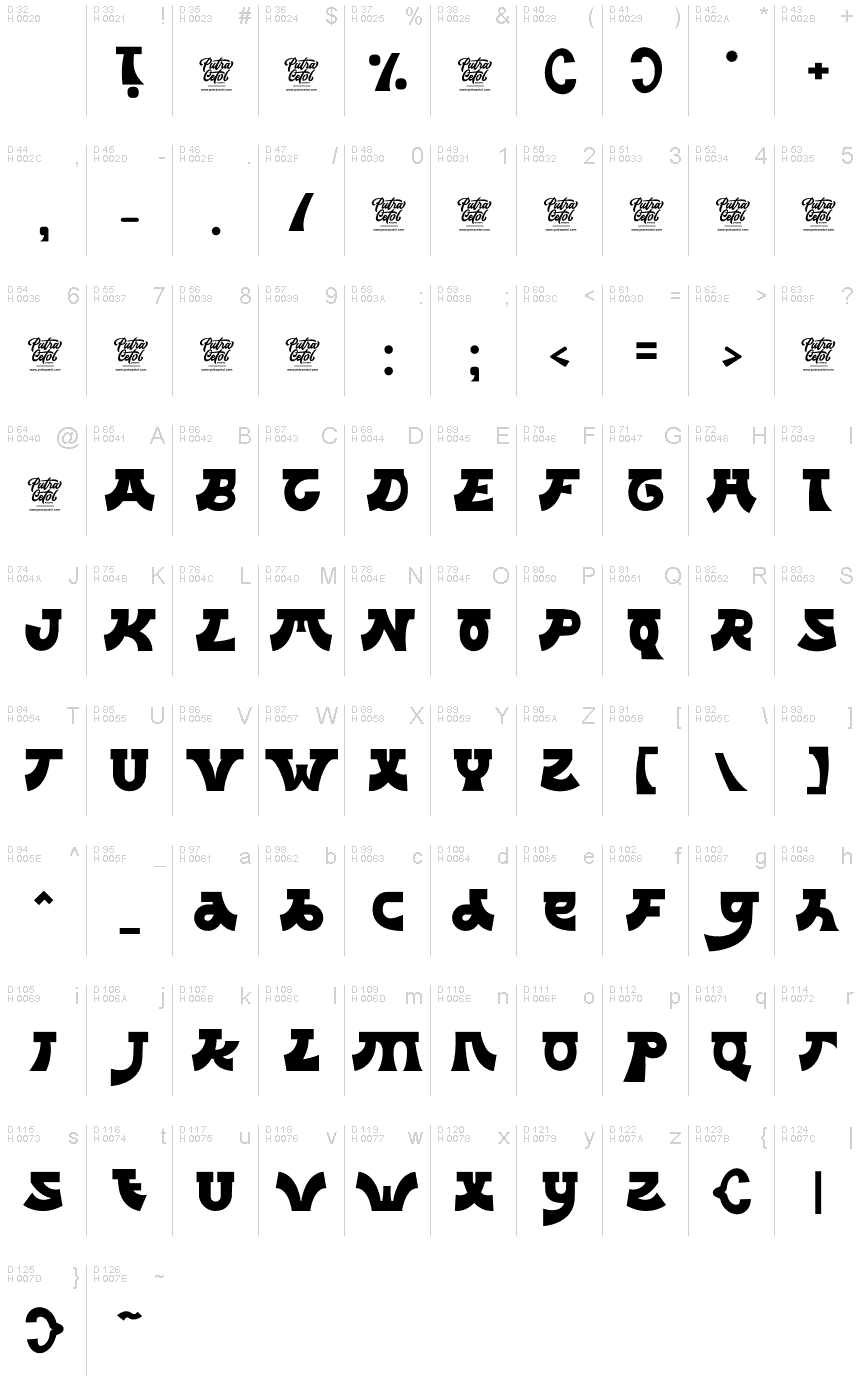
Japanese Emperor is a bold, semi-expanded font designed by PutraCetol Studio. Inspired by Japanese culture, this typeface features intricate strokes with a touch of elegance. Its unique style is suitable for various projects such as branding designs, book covers, movie titles, and even social media graphics. Use it to add a touch of oriental charm to your designs while still maintaining a modern and sophisticated look. With its bold weight and semi-expanded width, Japanese Emperor is perfect for headlines and titles that demand attention. Make your designs stand out with this stunning Japanese-style font.